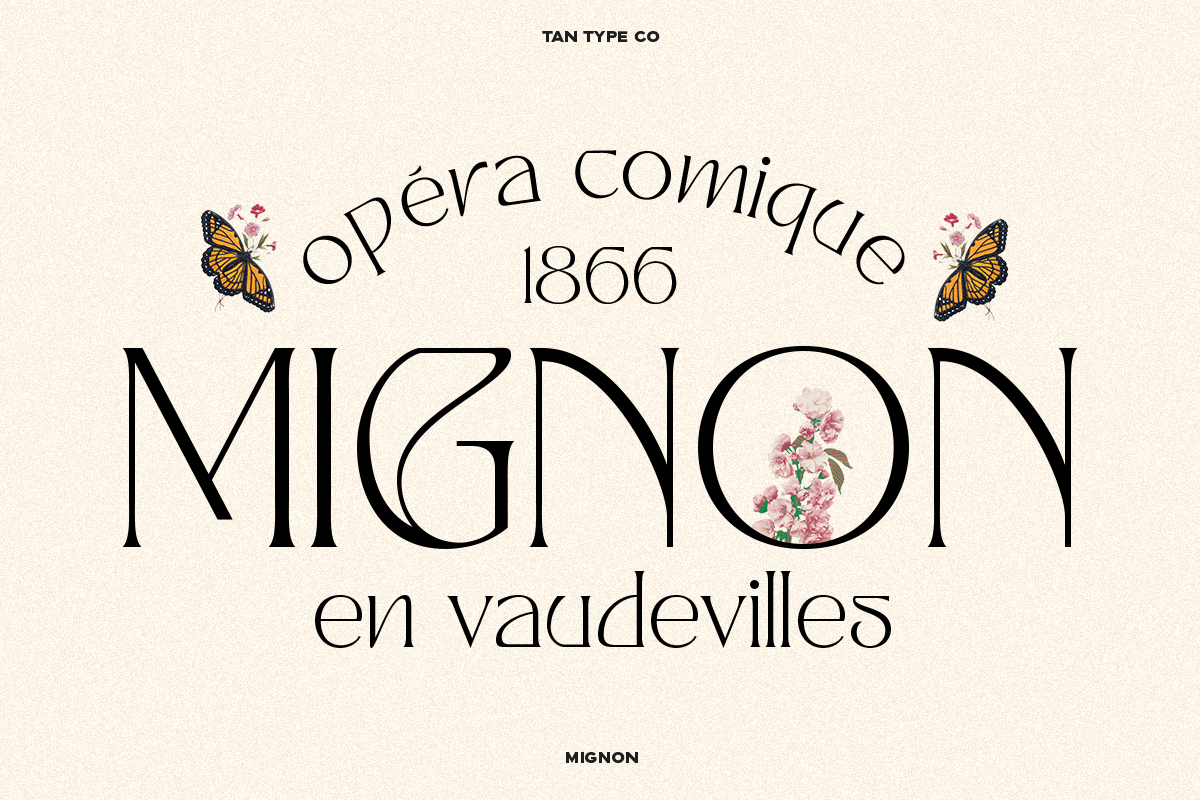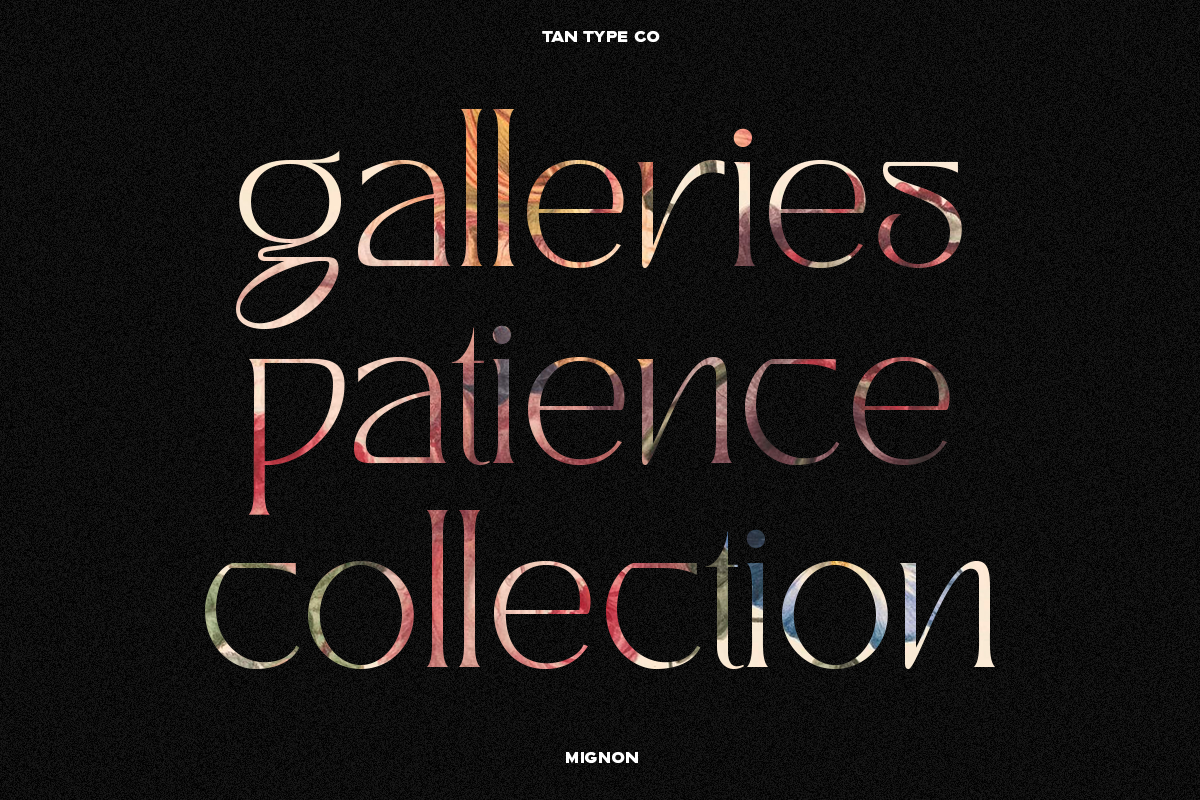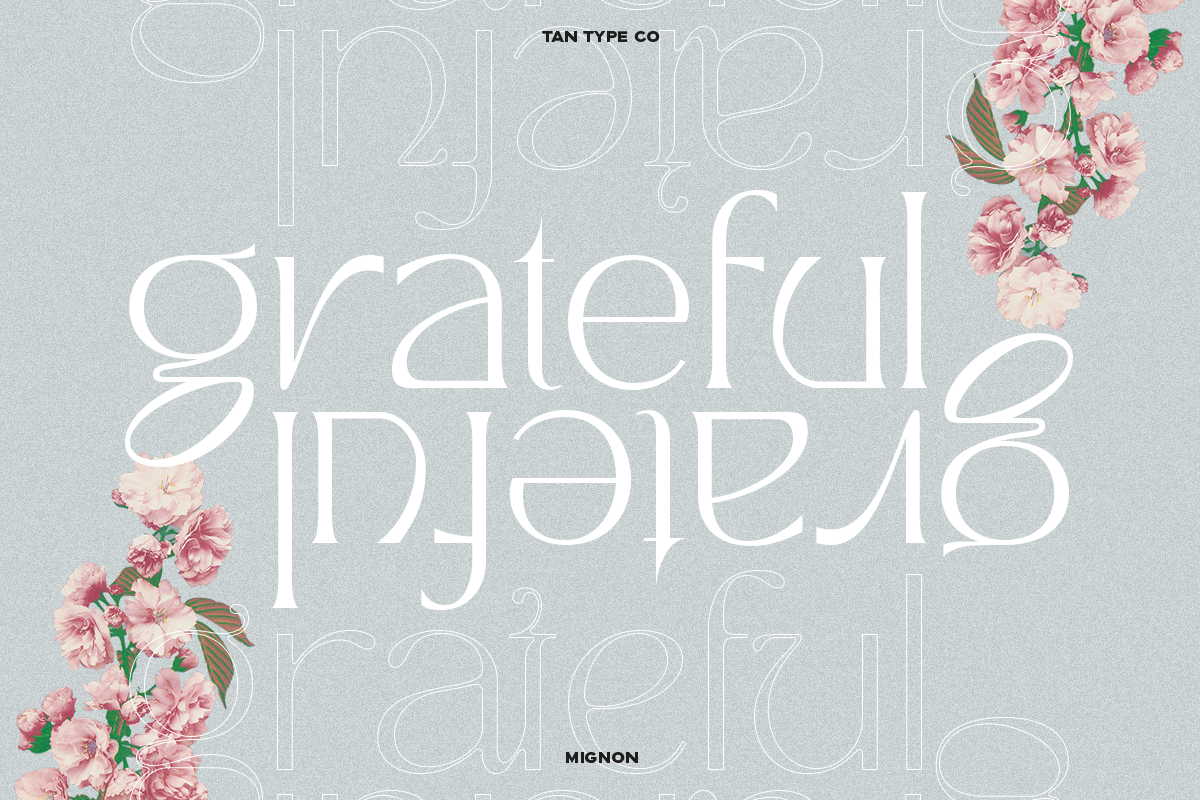
Tan Mignon Font
Tan Mignon is a simple display typeface inspired by the Art Deco architectural shape. Perfect if you want something minimalistic with a twist. Perfectly match the contemporary design theme for many projects such as logotypes, corporate branding, poster design, business cards, headline cover, and more.